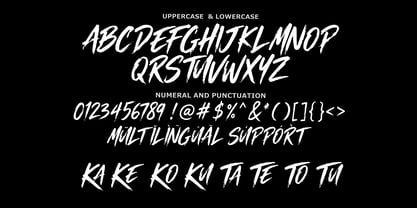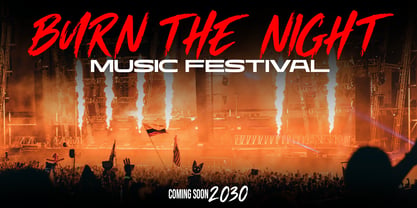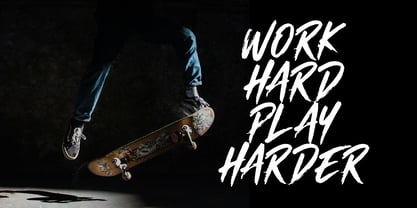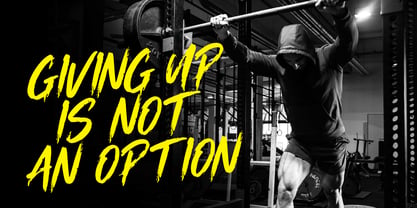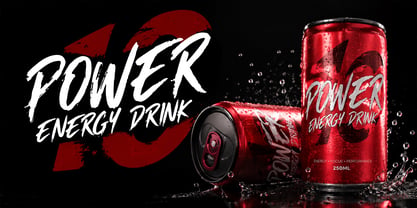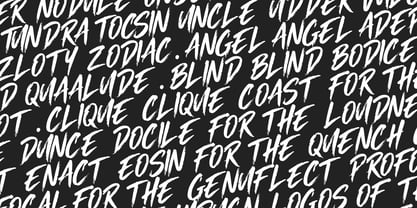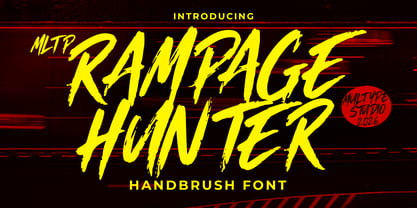
MLTP Rampage Hunter
MLTP Rampage Hunter is a bold and aggressive brush display font inspired by the raw energy of street culture, sports, action branding, and extreme visual design. Its rough brush strokes, sharp edges, distressed details, and dynamic handwritten style create a powerful and rebellious personality.
Designed to make headlines stand out, MLTP Rampage Hunter is perfect for sports branding, energy drink packaging, streetwear logos, apparel, posters, gaming graphics, music artwork, advertising, product packaging, and bold logo designs.
The font includes all caps letters, numerals, punctuation, and multilingual support, giving designers flexibility for both branding and promotional projects. Its energetic brush style works especially well when you need a strong, masculine, urban, and action-oriented visual identity.
MLTP Rampage Hunter is an excellent choice for designers looking for a bold brush font, rough handwritten font, sports font, streetwear font, or aggressive display typeface that delivers maximum visual impact.